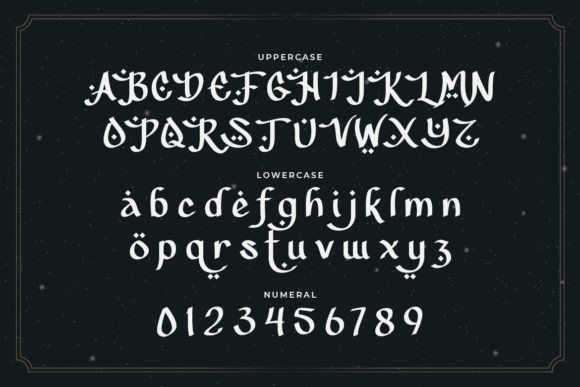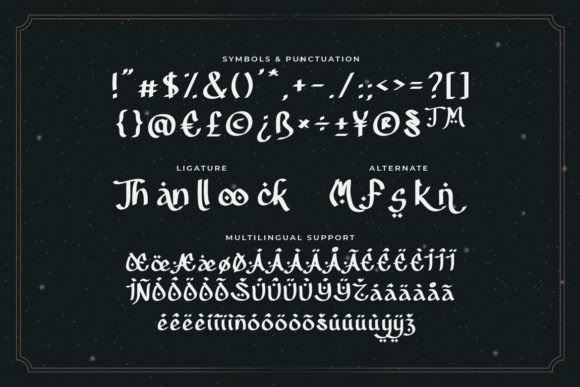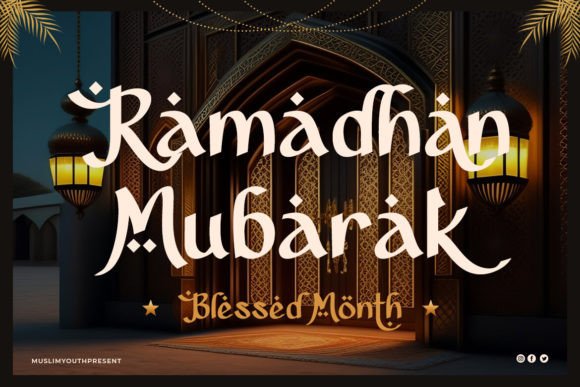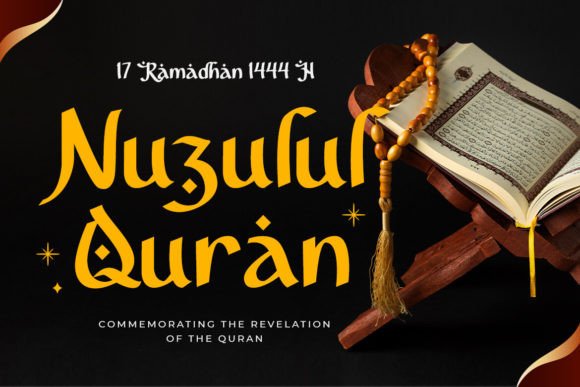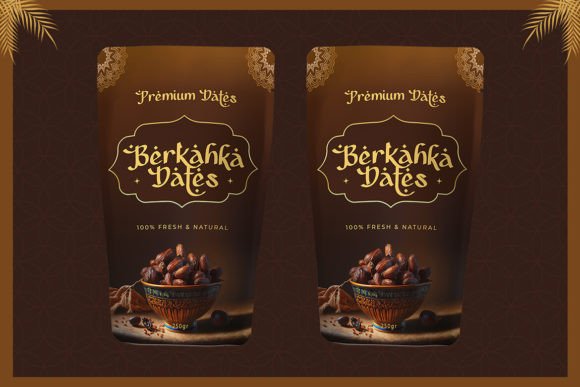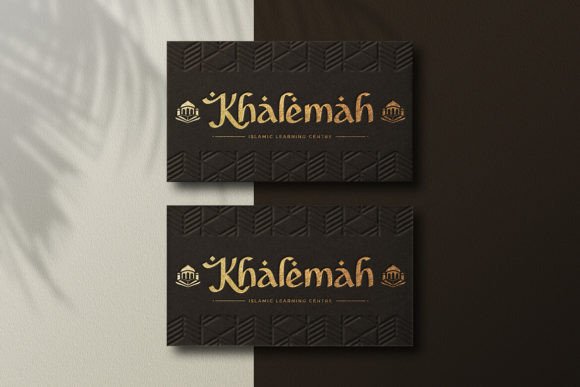
Introduction to Malleknas Font
Introducing “Malleknas” – an Arabic display typeface that captures the essence of Arabic calligraphy, offering a captivating and culturally rich typographic solution for your designs.
With its intricate strokes and elegant curves, “Malleknas” celebrates the beauty and tradition of Arabic script Whether you’re designing branding materials, editorial layouts, event invitations, or digital artworks, this font adds a touch of sophistication and authenticity to your projects.